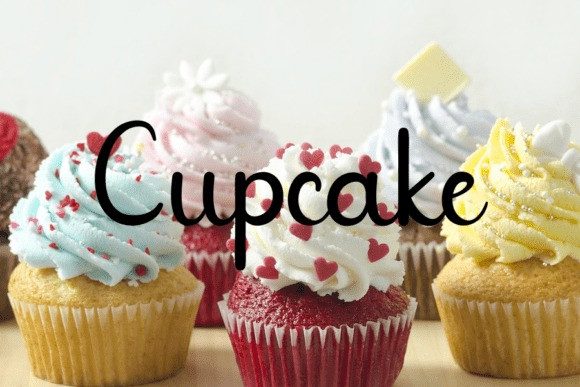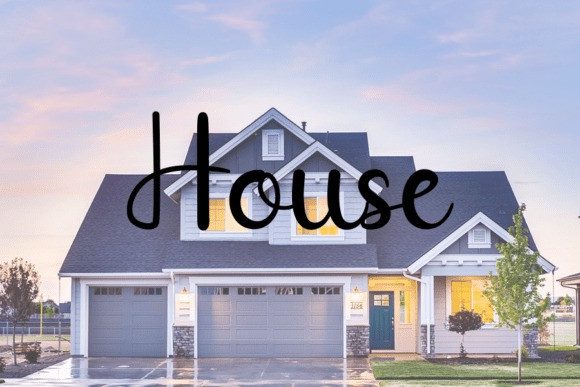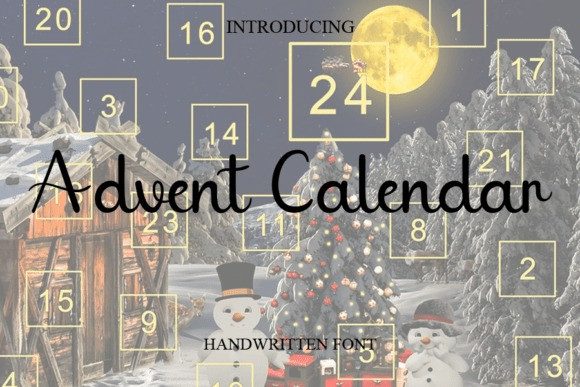
Advent Calendar Handwriting Font
Advent Calendar Handwriting Font is a font that exudes softness and elegance. With graceful strokes and a feminine touch, this font will elevate any design project to the highest level, be it branding, titles, wedding designs, invitations, signs, logos, labels, and more!